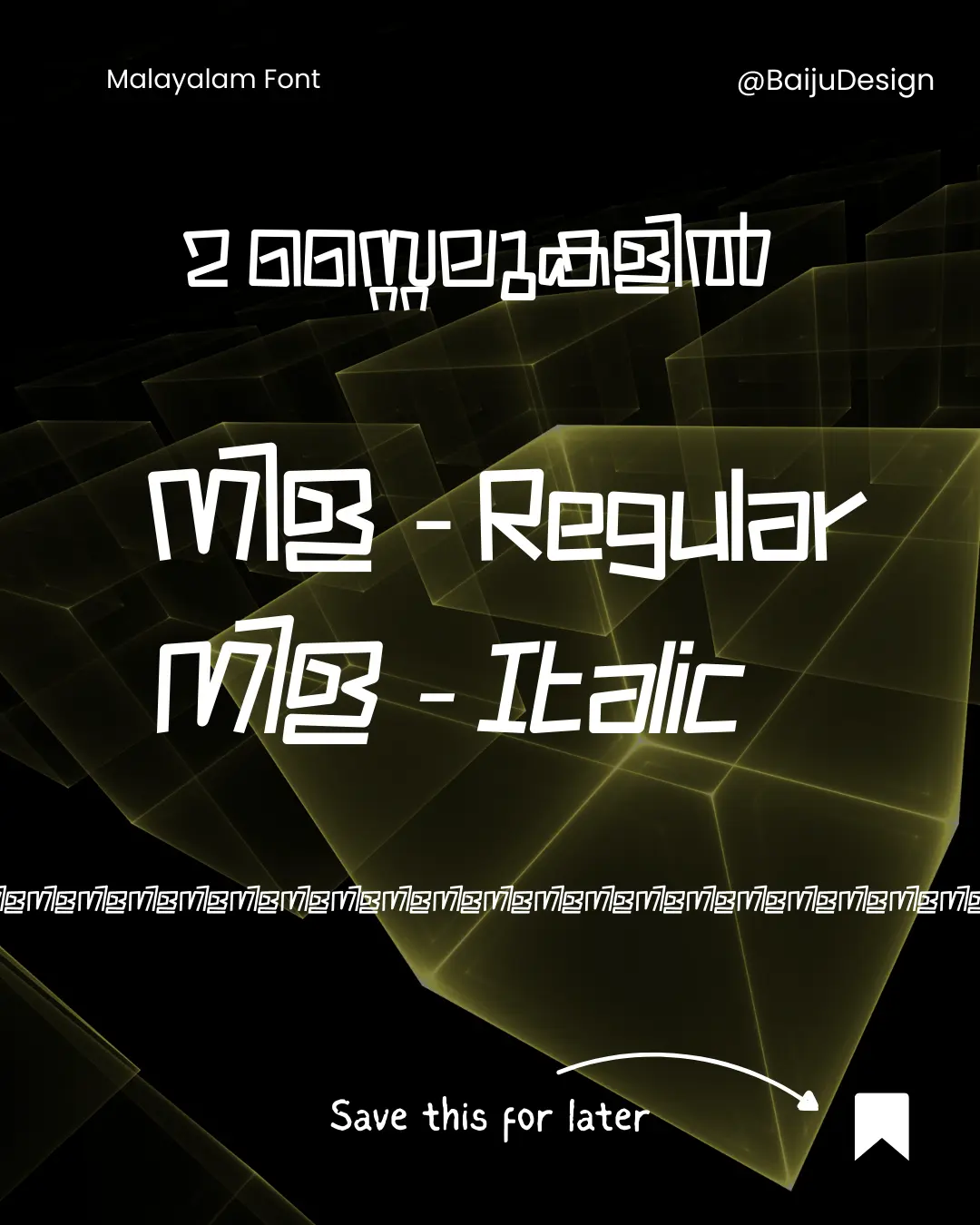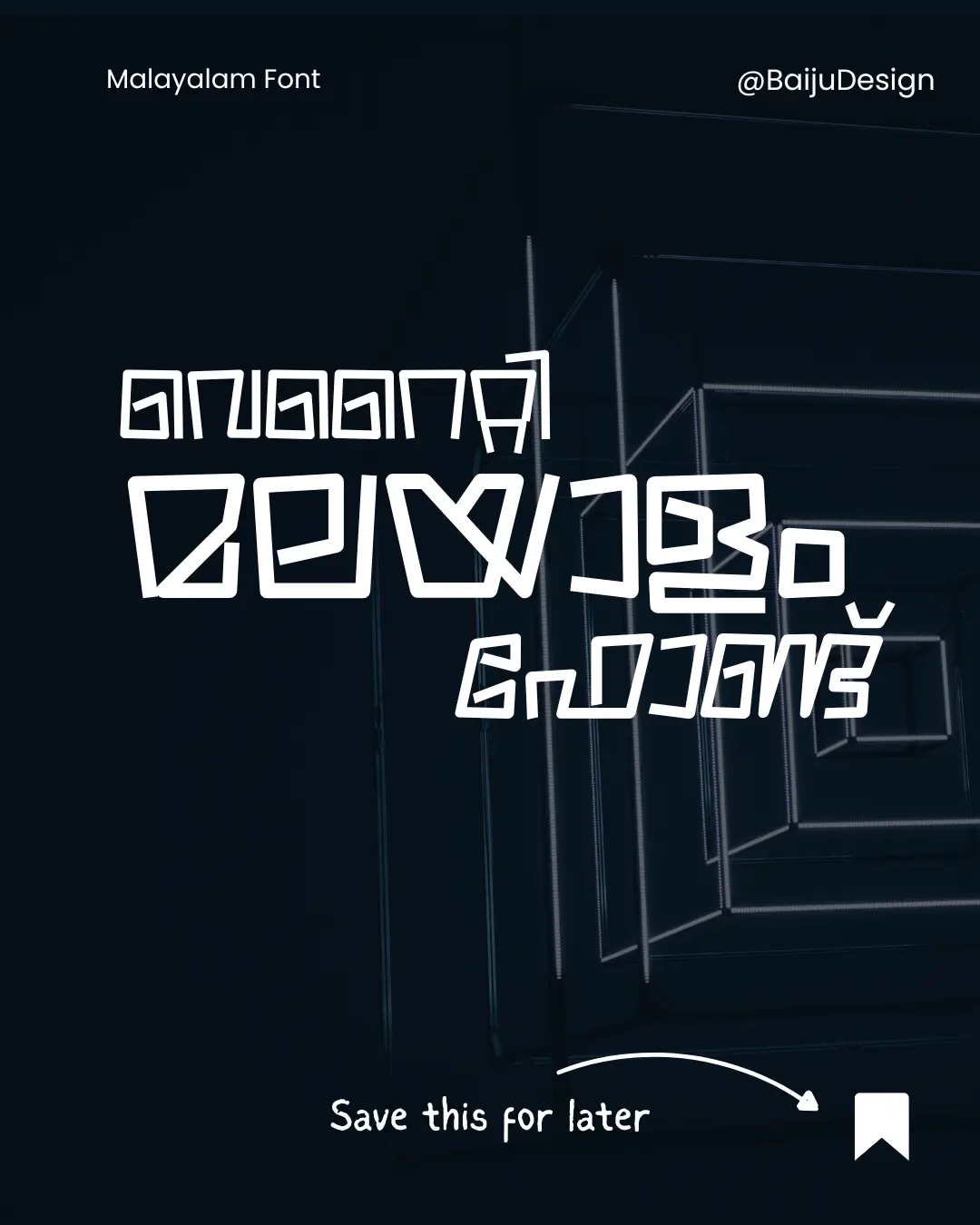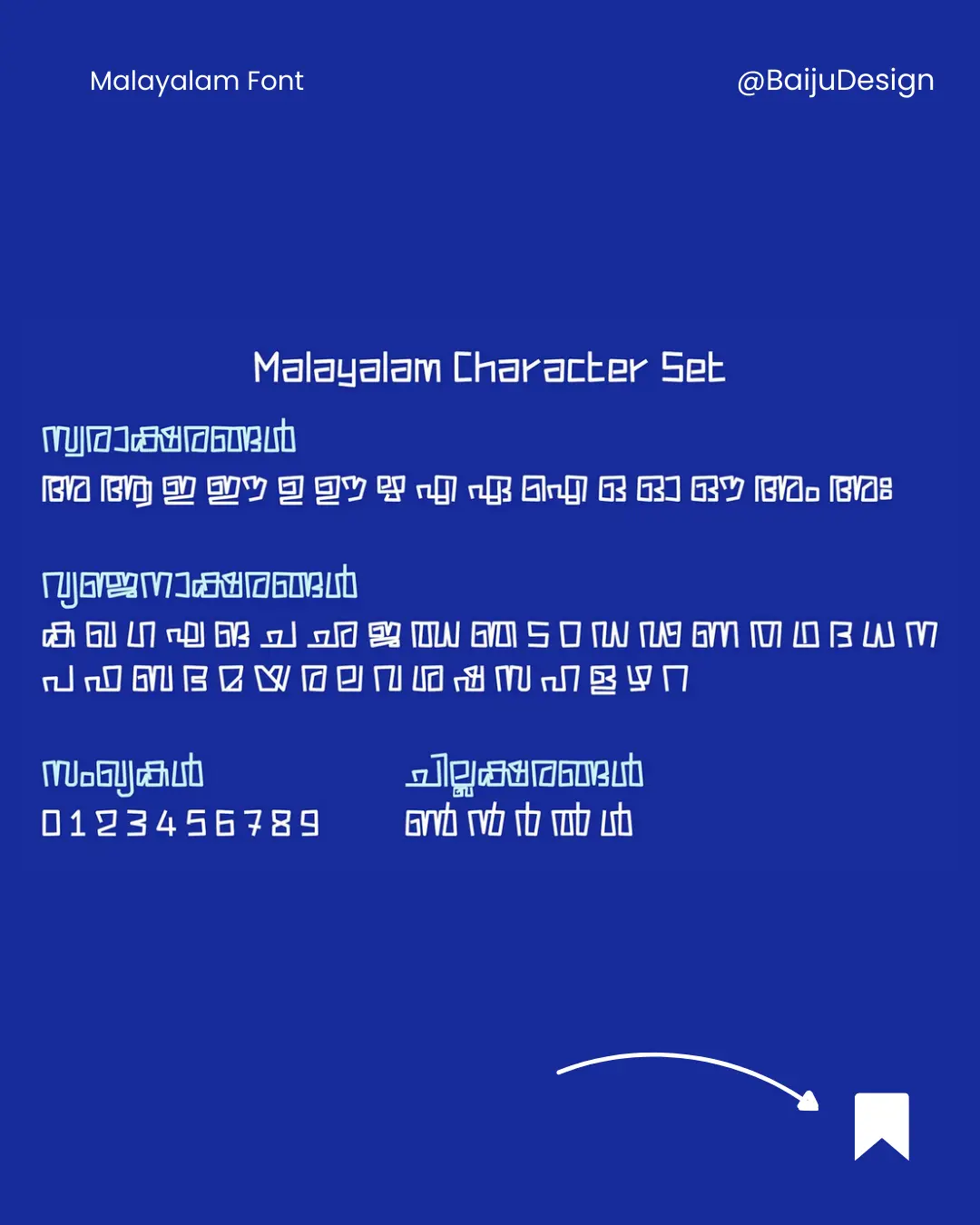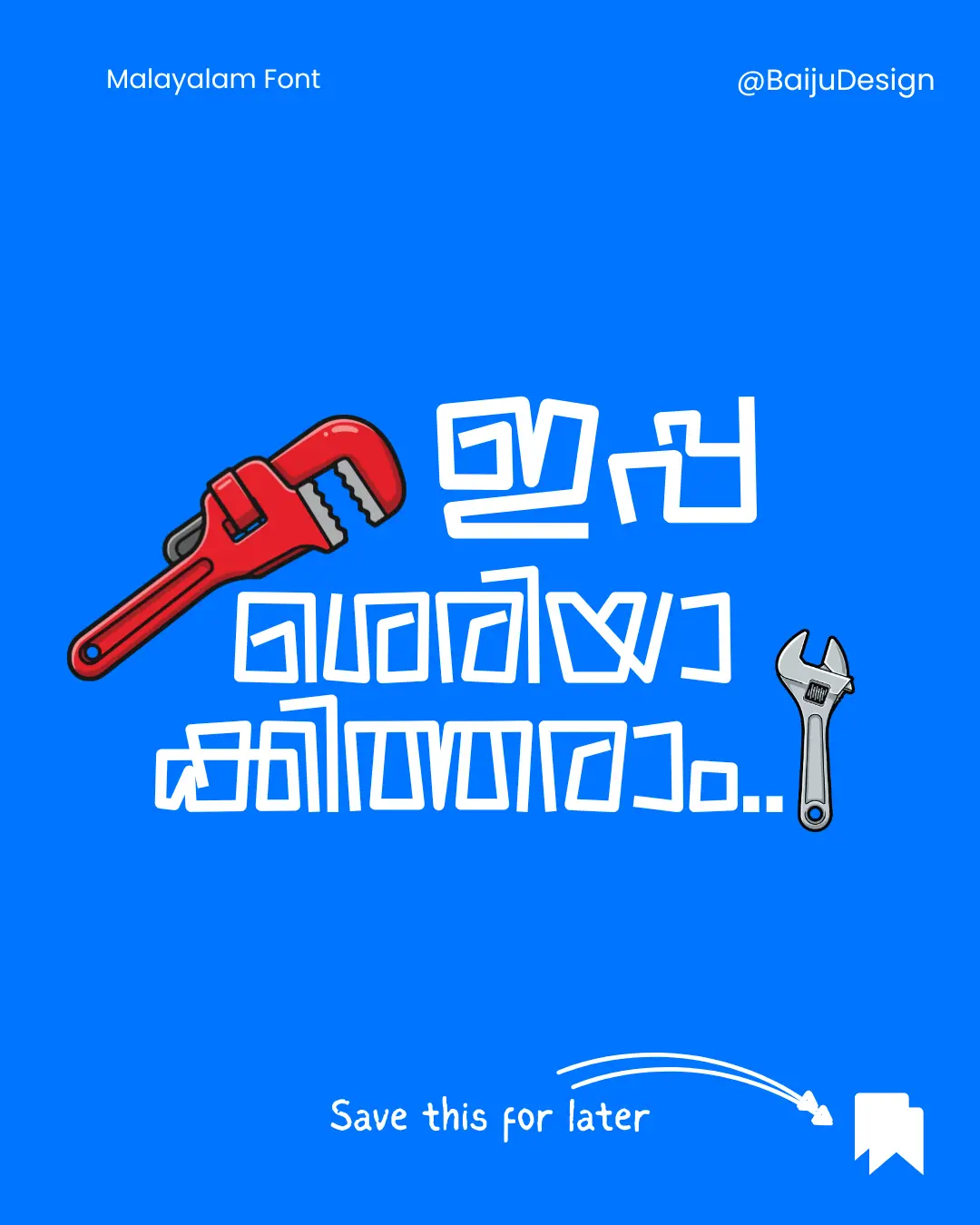
✨ മലയാളത്തിലെ പുതിയ Bilingual Unicode ഫോണ്ട്.
✨ ഒരു പാക്കേജിൽ 2 വ്യത്യസ്ത വേരിയേഷൻസുകൾ.
✨ പരിഷ്കരിച്ച മലയാളം ലിപി ആയതിനാൽ കൂടുതൽ ഗ്ലിഫുകൾ, കൂട്ടക്ഷരങ്ങൾ.
✨ പോസ്റ്ററുകൾ, ഹോർഡിംഗുകൾ, പത്ര പരസ്യങ്ങൾ എന്നിവയ്ക്ക് ഉപയോഗിക്കാൻ കഴിയുന്ന മനോഹരമായ ഫോണ്ട്.
✨ വലിയ ഹോർഡിങ്, പോസ്റ്റർ എന്നിവക്ക് അനുയോജ്യം.
✨ മൊബൈൽ ഫ്രണ്ട്ലി ആയ ഈ ഫോണ്ട്, മൊബൈൽ ഡിസൈൻ ആപ്പുകളിലും ഉപയോഗിക്കാം.
NILA is a refined bilingual typeface that supports Malayalam and English, designed with elegance, readability, and versatility in mind. With two stylistic variants –Regular and Italic -it adapts seamlessly to both creative and professional needs.
Key Features:
- ✅ Bilingual Support – Malayalam + English, crafted for smooth typesetting.
- ✅ Two Variants – Regular and Italic styles for flexible design usage.
- ✅ Unicode Compliant – Ensures flawless rendering across devices, browsers, and software.
- ✅ Readable & Elegant – Balanced strokes and clean letterforms for body text and display.
- ✅ Versatile Application – Ideal for branding, print, editorial, digital media, and social content.
- ✅ Modern + Traditional – Preserves the cultural beauty of Malayalam while offering a contemporary design.
✨ NILA brings together tradition and modernity, making it a reliable choice for multilingual design projects.
| Font Name | Nila-A Bilingual Display Typeface |
| Font Type | Display & Title |
| Creator / Designer | Vidhya |